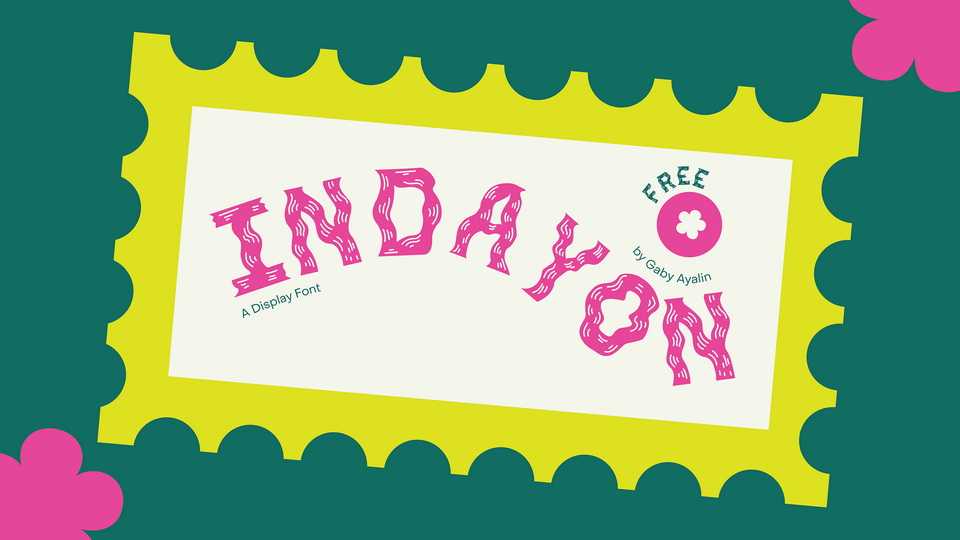
Download Indayon font, a display typeface that has unorthodox letter shapes and shape proportions with wavy line details to emphasize the curves. Indayon represents how we are all connected as living beings moving to their own beat and rhythm.